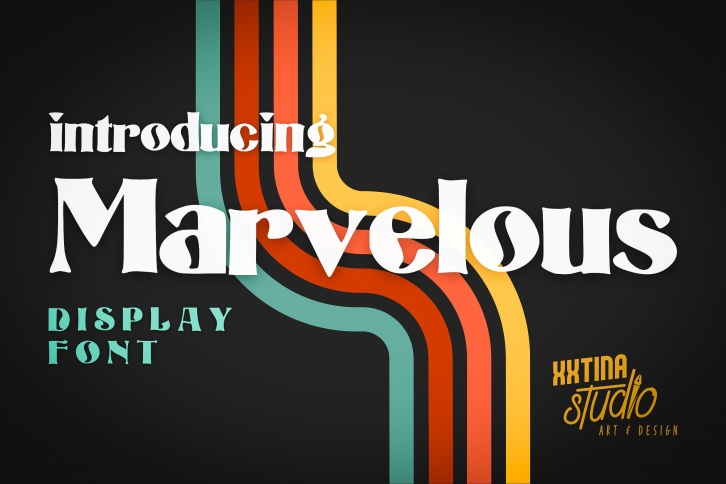
Marvelous is a handmade retro display font with a fancy, luxury aesthetic. Masterfully designed to become a true favorite, this font has the potential to bring each of your creative ideas to the highest level!